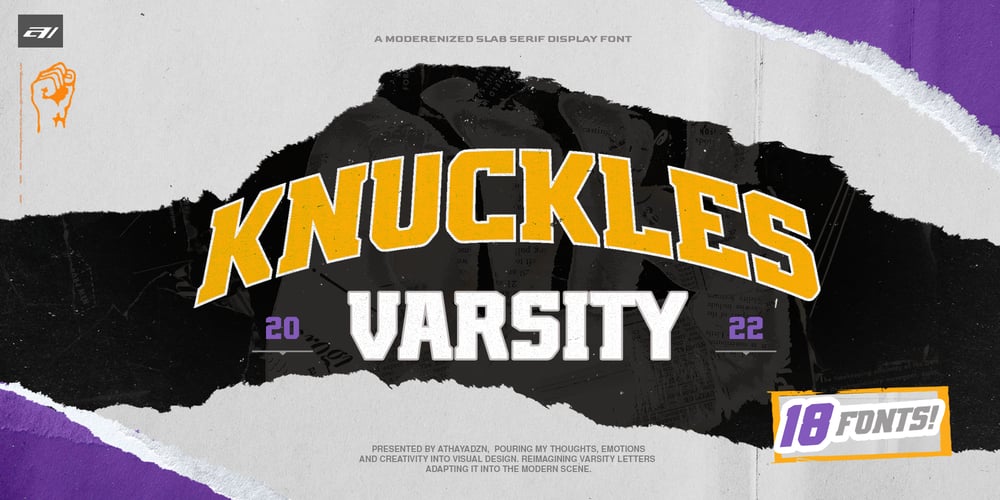
AZN Knuckles Varsity Font Family was designed by Ahmad Athaya and published by AthayaDZN. AZN Knuckles Varsity contains 18 styles and family package options. Introducing “AZN Knuckles Varsity” font by AthayaDZN. Revolutionizing a varsity slab serif, combining sharp and rounded edges, angled serif, and a variety of weights, fitting it into the modern scene.Equipped with 3 styles ( Defined, Regular, Stencil )Use the Defined version if you are aiming for that slab serif look, just like the name suggested, it defines the modernized slab serif on each letter, giving it that retro look yet still in the modern scene. Especially on the light weight of this version, the slab serif is really prominent.Use the Regular Version if you are aiming for any type of design that you see this font fits especially the modern scene, just like how it’s advertised.Use the Stencil version if you are aiming to make a statement, my favorite one is the Bold and Italic version of the Stencil if I was to make a statement, just like the preview where it says “Anarchy”, the separated shapes of the letter combined with it’s bold and slanted shape is perfect to make a strong statement.Language Support : Afrikaans, Albanian, Danish, Dutch, English, Estonian, Filipino, Finnish, French, Galician, Indonesian, Irish, Italian, Luxembourgish, Norwegian, Portuguese, Romansh, Scottish Gaelic, Spanish, Swedish, Swiss German, Uzbek (Latin).And that’s it for this font, thank you for purchasing the product, I wish you success on your projects. Please enjoy the font and let me know if you needed any help or if you have any questions-Athayatwitter.com/Athaya_DZN behance.net/athayadzn